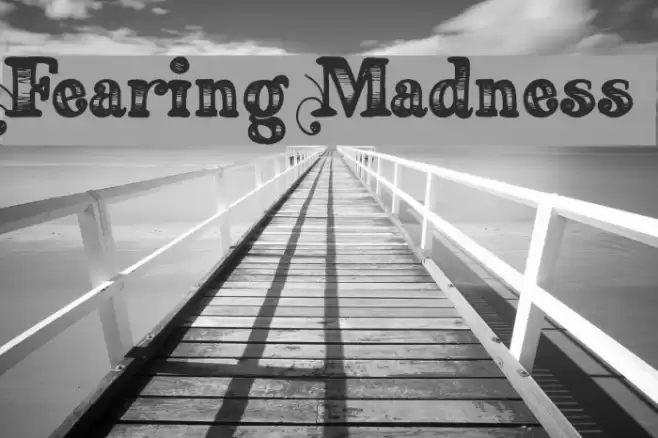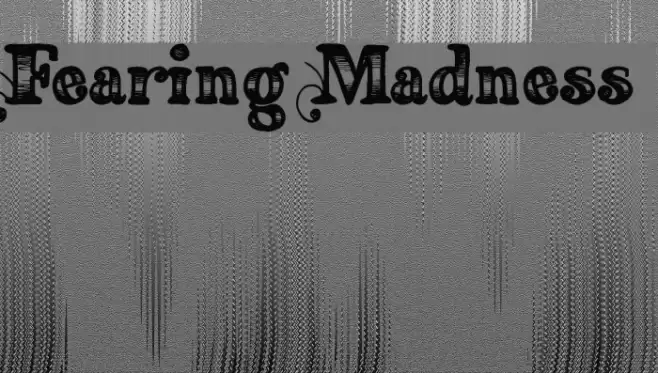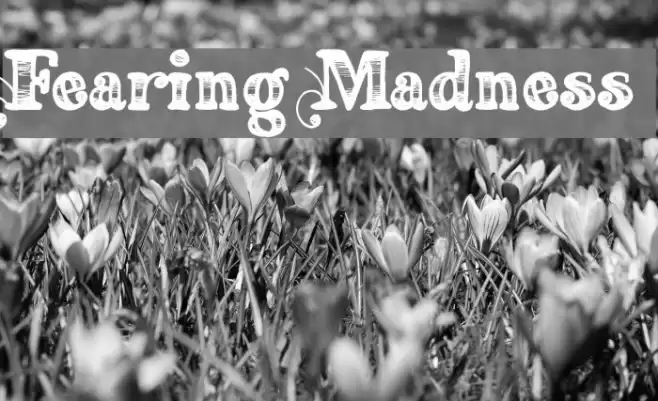
Fearing Madness Font
Fearing Madness Description
This font features a bold and decorative style with a distinct vintage flair. The uppercase letters are adorned with intricate swirls and embellishments, giving them a whimsical and ornate appearance. The lowercase letters maintain a similar decorative style, with a slightly more playful and less formal design. The numbers are bold and consistent with the overall theme, featuring unique curves and flourishes. The special characters are creatively integrated, adding to the font's overall artistic and expressive nature. This font is ideal for projects that require a touch of elegance and creativity, such as invitations, posters, and branding materials.
A bold, decorative font with vintage flair and ornate embellishments from Uncategorized fonts.
- Overall Style: Vintage, Decorative